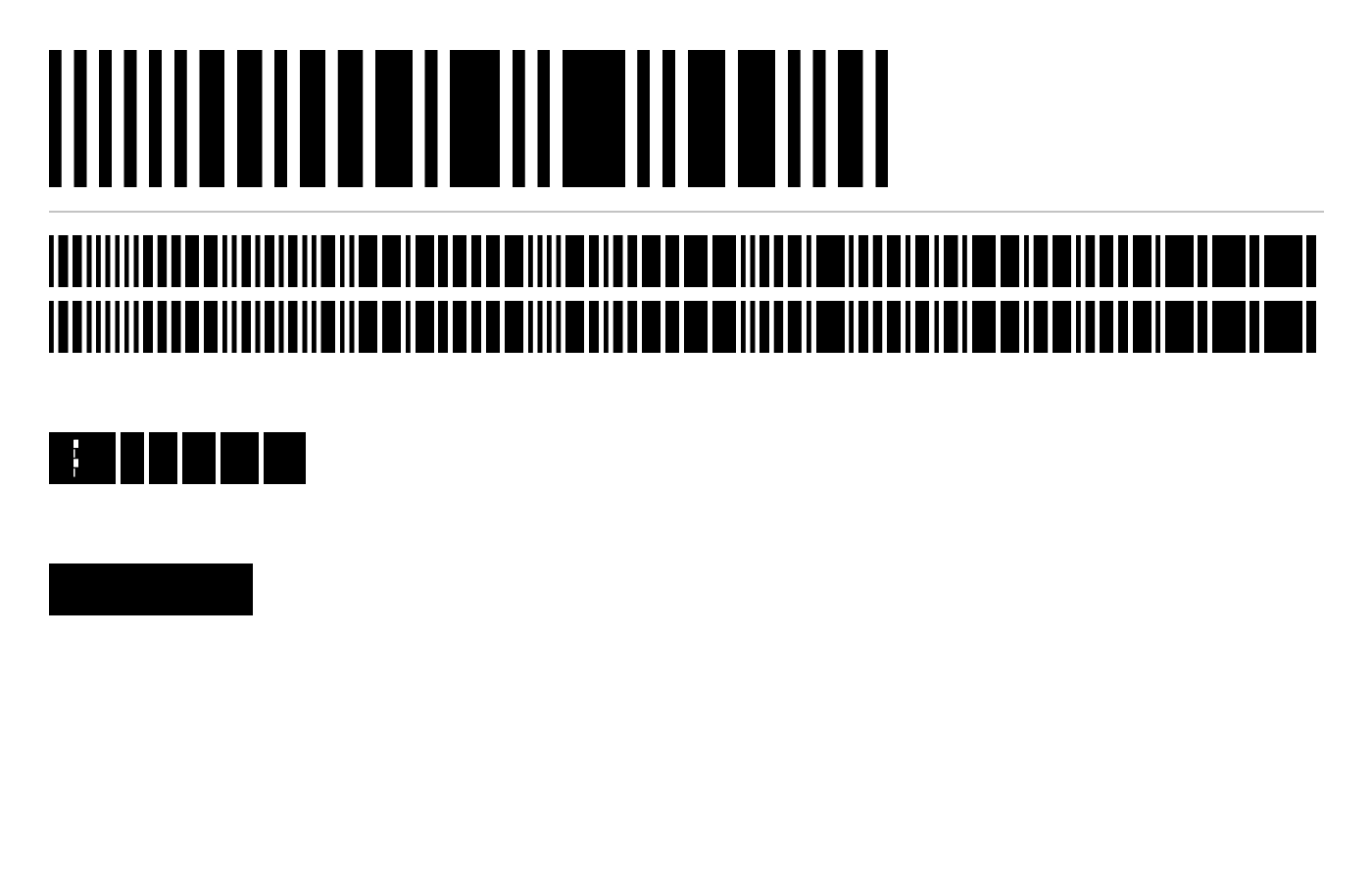
Barkode is a unique, monospaced barcode-style font characterized by its thick and thin vertical bars resembling a traditional barcode pattern. It has a striking, modern, and industrial look with high contrast and tightly spaced elements, making it perfect for tech, futuristic, or product packaging designs where a bold, coded visual statement is desired. This font works best in display settings such as logos, posters, or branding that wants to evoke a sense of technology and modernity.
barkode Font
About barkode Font